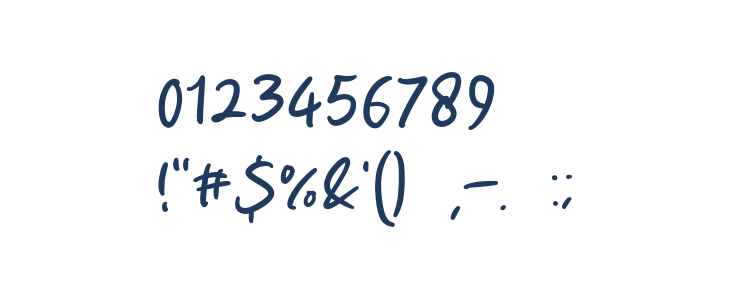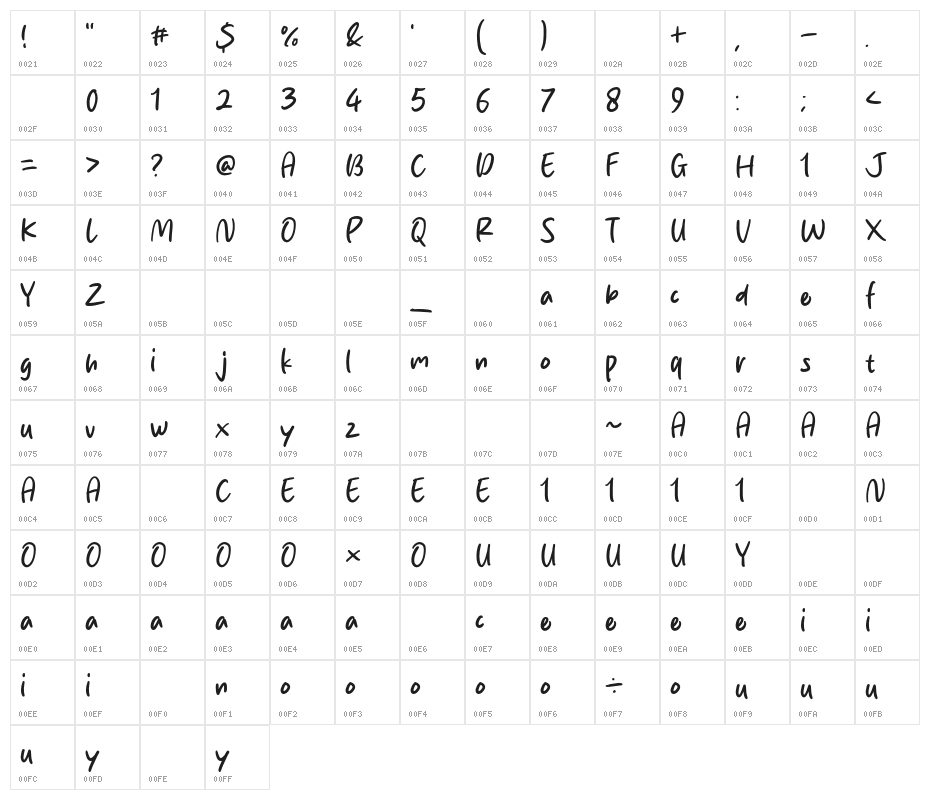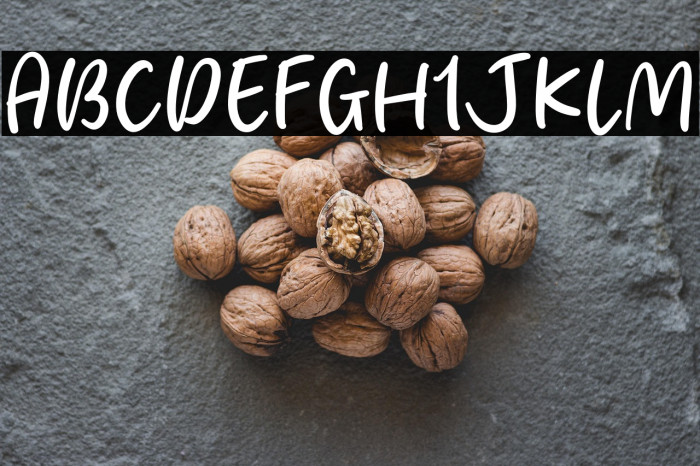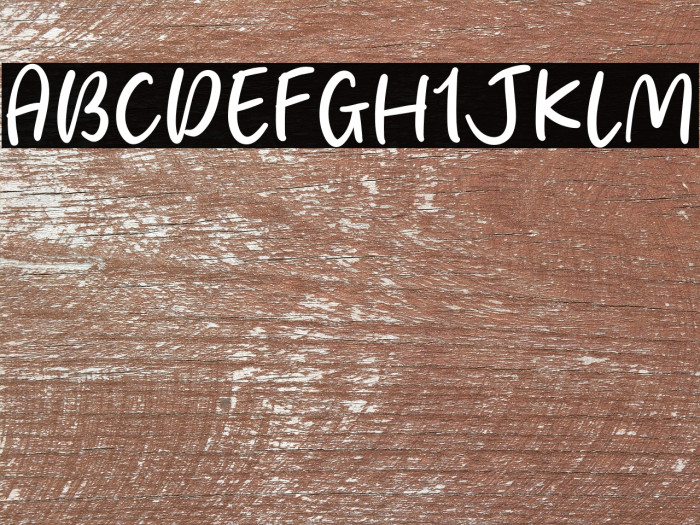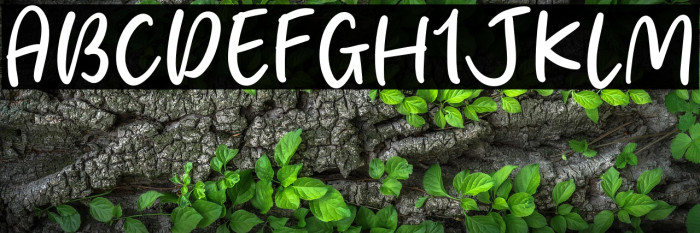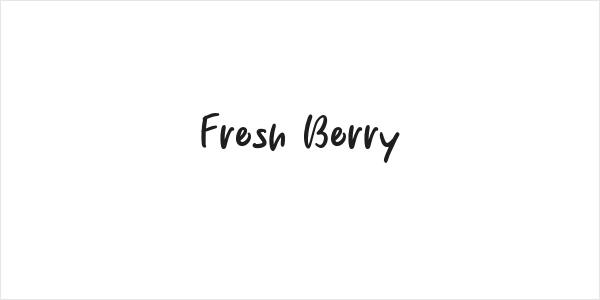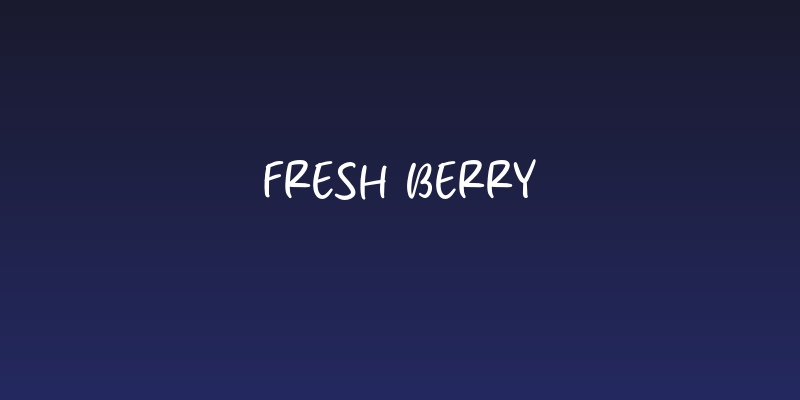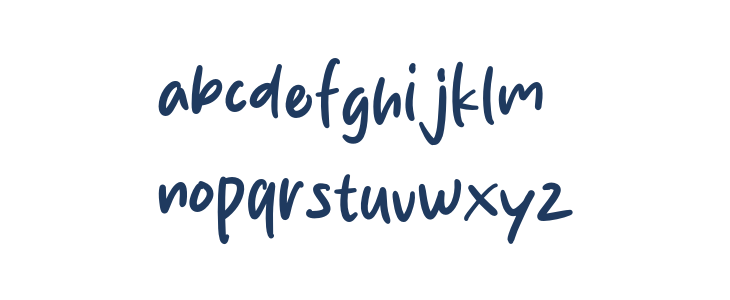
Fresh Berry Font
Fresh Berry Description
This font exudes a playful and casual handwritten style, characterized by its smooth, flowing lines and slightly irregular shapes that mimic natural handwriting. The letters are well-rounded and maintain a consistent stroke width, giving it a friendly and approachable appearance. The uppercase and lowercase letters are distinct yet harmonious, with a slight slant that adds to its informal charm. The numerals and special characters are crafted with the same attention to detail, ensuring readability and coherence across all elements. This font is versatile, suitable for projects that require a personal touch or a relaxed vibe.
| Overall Style | Casual |
| Use Case | Logos, Headlines, Informal text |
| Proposed Projects | Ideal for greeting cards, invitations, personal branding, social media graphics, and casual event posters. |